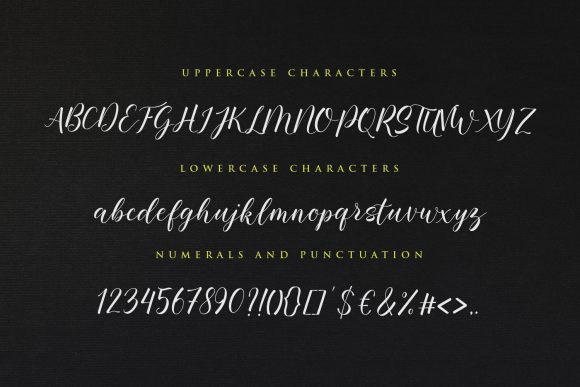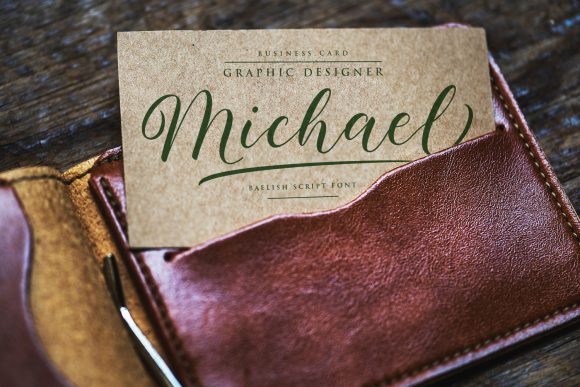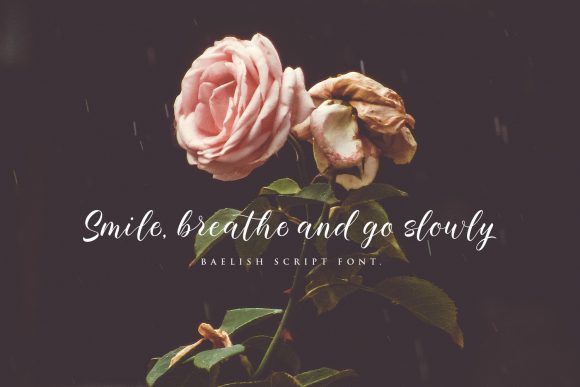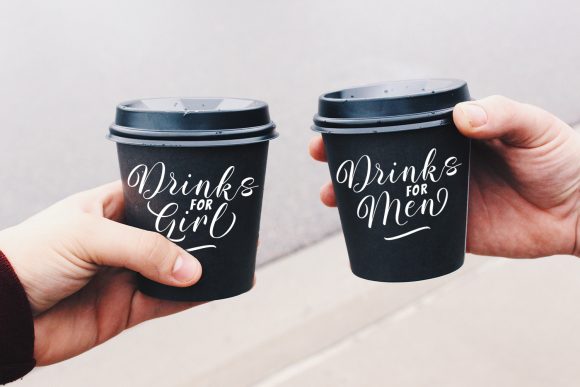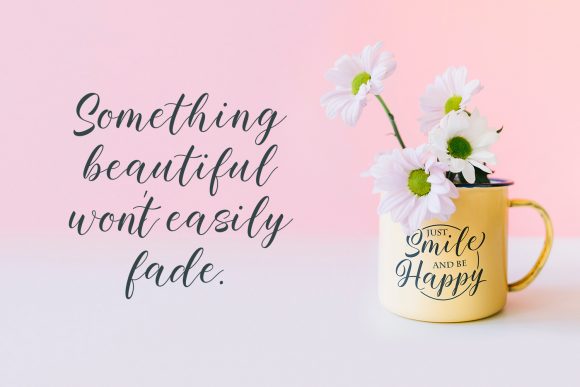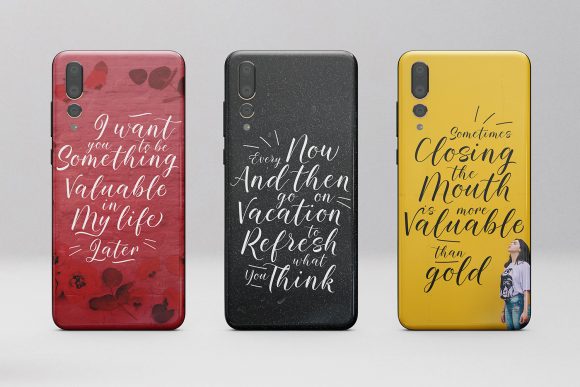
Introducing Baelish Font: The Epitome of Romantic Calligraphy
In the realm of typography, few fonts capture the essence of romance and elegance as beautifully as Baelish. This stunning calligraphy typeface is designed to make your creative projects stand out, with its unique characteristic of characters dancing along the baseline. Baelish is not just a font; it’s an artistic statement that can elevate your designs to new heights. Whether you’re a designer looking for the perfect typography for your client’s wedding invitation or a crafter seeking a unique font for your handmade products, Baelish is an excellent choice.
What Makes Baelish Font Special?
Baelish’s distinctive feature is its romantic and flowing script, which gives any text a luxurious and sophisticated look. The way its characters elegantly dance along the baseline adds a dynamic and artistic touch to any design. This font is incredibly versatile, making it suitable for a wide range of applications. From logos and wedding invitations to headings, t-shirts, letterheads, signage, labels, news, posters, badges, and more, Baelish can bring a touch of class and refinement to your projects.
One of the key advantages of Baelish is its versatility. Its elegant and flowing design makes it perfect for:
• Logos: Create a memorable brand identity with Baelish. Its unique style will set your brand apart from the competition.
• Wedding Invitations: Add a touch of romance and sophistication to your wedding invitations. Baelish’s elegant script is sure to impress.
• Headings: Elevate your website, blog, or marketing materials with stylish headings that grab attention.
• T-shirts and Apparel: Design stunning apparel with Baelish. Its flowing script looks great on t-shirts, hoodies, and more.
• Letterheads and Stationery: Give your correspondence a professional and elegant look with Baelish.
• Signage and Labels: Make your signage and labels stand out with a font that’s both stylish and easy to read.
• News and Posters: Create eye-catching news articles and posters with Baelish. Its unique style is sure to draw readers in.
• Badges and More: From badges to menus, Baelish can add a touch of elegance to any design project.
Why Designers and Crafters Love Baelish
Baelish has quickly become a favorite among designers and crafters for several reasons:
• Ease of Use: Despite its complex and elegant design, Baelish is surprisingly easy to use, even for those with limited design experience.
• High Readability: While Baelish is elegant and artistic, it remains highly readable, making it suitable for both headings and body text.
• Customizability: Baelish can be easily customized to fit your project’s needs. Whether you want to adjust the size, color, or style, Baelish adapts beautifully.
• Unique Style: In a world where many designs look similar, Baelish offers a unique style that can make your projects stand out.
Tips for Using Baelish Font Effectively
To get the most out of Baelish, consider the following tips:
• Pair with Simple Fonts: For maximum impact, pair Baelish with simpler fonts for body text. This contrast will make your headings stand out.
• Experiment with Colors: Baelish looks great in a variety of colors. Experiment with different hues to find the perfect match for your design.
• Adjust Size and Spacing: Don’t be afraid to adjust the size and spacing of Baelish characters to fit your design needs.
• Use for Headlines and Titles: Baelish’s unique style makes it perfect for headlines and titles. Use it to draw attention to key information.
Author maculinc
Baelish font is a beautiful addition to any designer’s or crafter’s toolkit. Its romantic and flowing calligraphy style, combined with its versatility and readability, makes it an excellent choice for a wide range of projects. Whether you’re designing a wedding invitation, creating a logo, or crafting a unique piece of art, Baelish can help you achieve your creative vision. With Baelish, you can add a touch of elegance and sophistication to your designs, making them truly unforgettable.